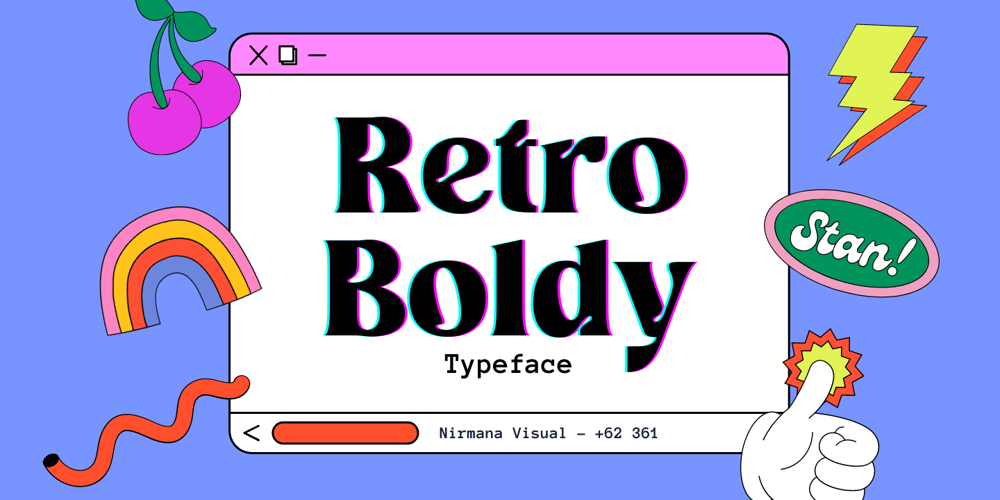
Retro Boldy Font Family was designed by Sigit Dwipa and published by Nirmana Visual. Retro Boldy contains 1 styles and family package options. Retro Boldy, a Bold, classy, contemporary of script font, inspired by 90s Era.Retro Boldy offers beautiful typographic harmony for a diversity of design projects, including logos & branding, social media posts, advertisements & product designs.